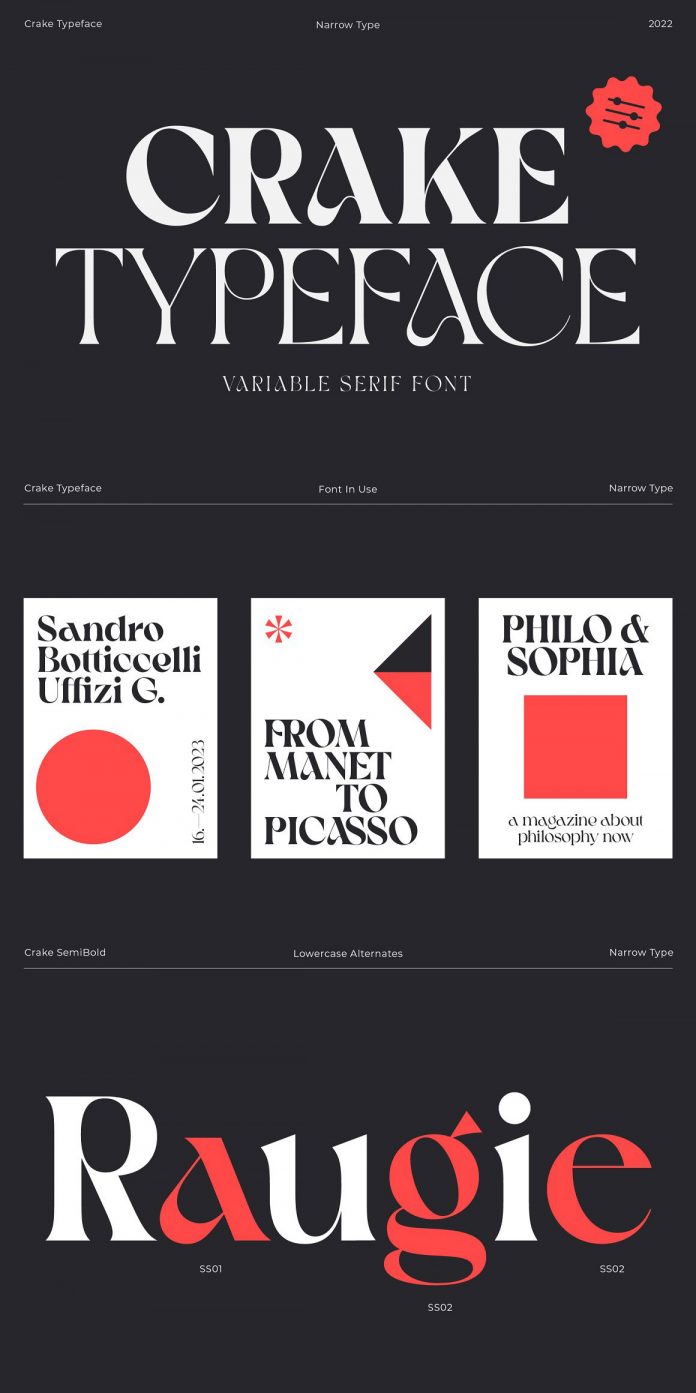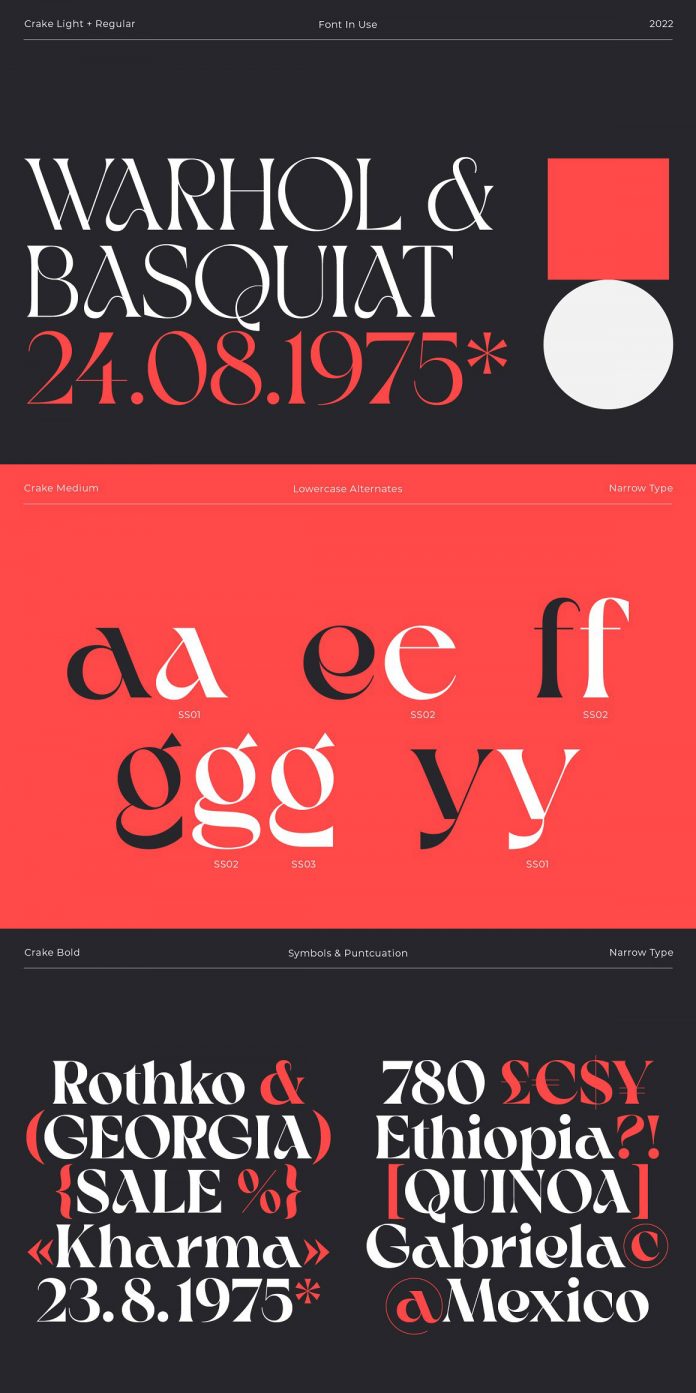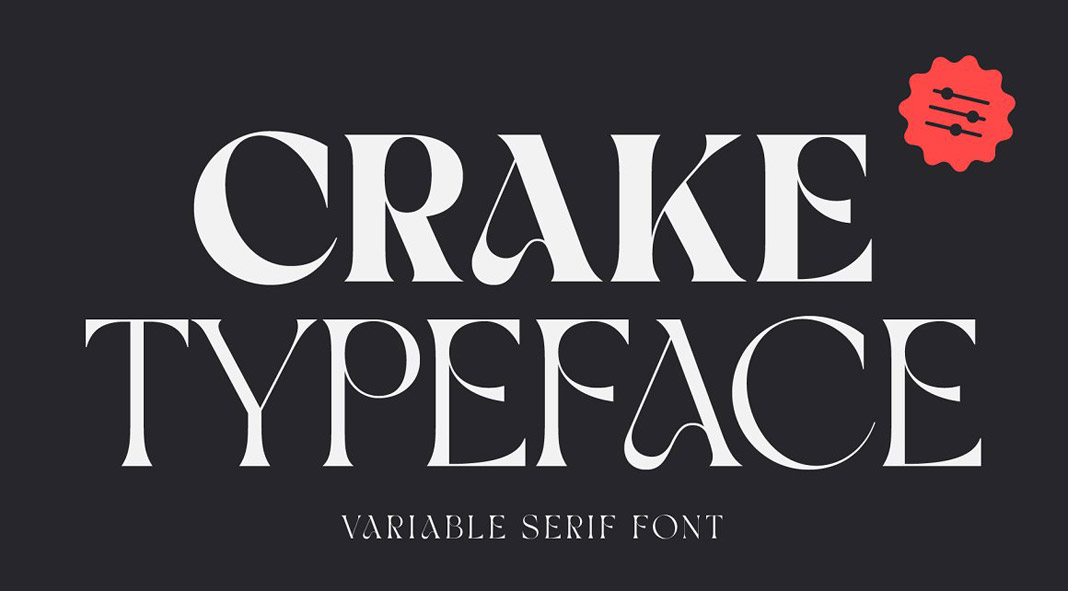
Check out the Crake font, a variable serif typeface with a distinctive look.
Designed and published by foundry Narrow Type, the Crake font is based on a high-contrast serif typeface with a distinctive style. With its organic details and strong geometric shapes, the Crake font is a great choice for branding, editorial design, packaging, social media projects, and much more. The typeface comes in 5 weights ranging from Light to Bold plus a variable version to give you all the typographic freedom you need. Equipped with many discretionary and standard ligatures as well as different stylistic sets, you can change the feel of your design from more organic to more standard. Just click on one of the following links to learn more about all features.